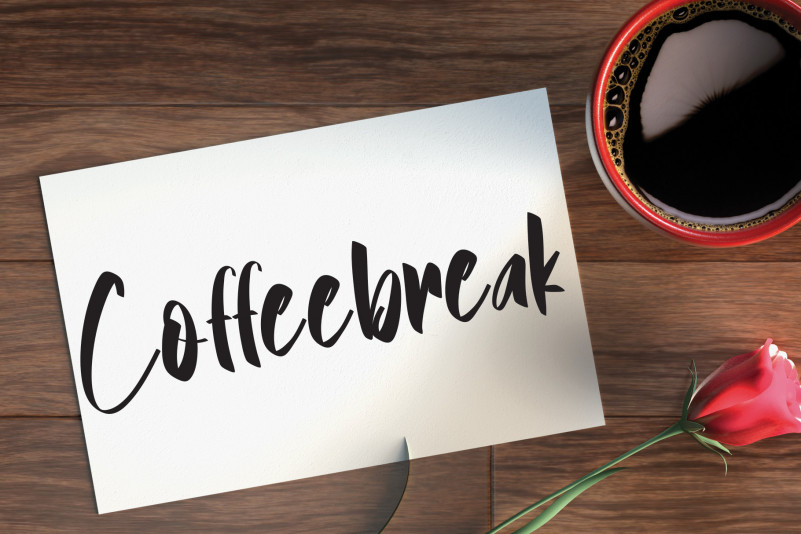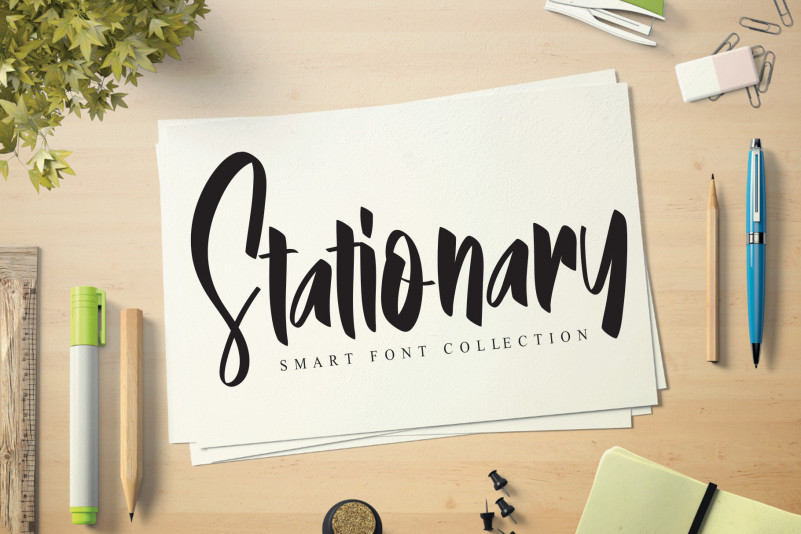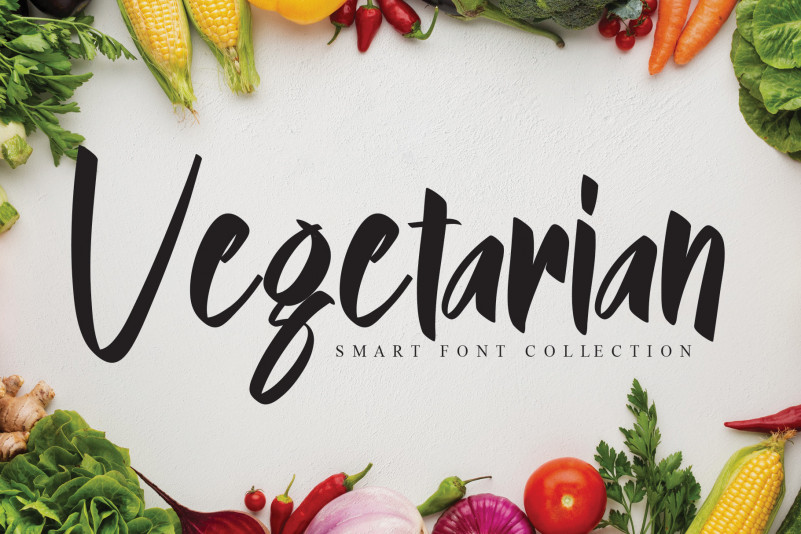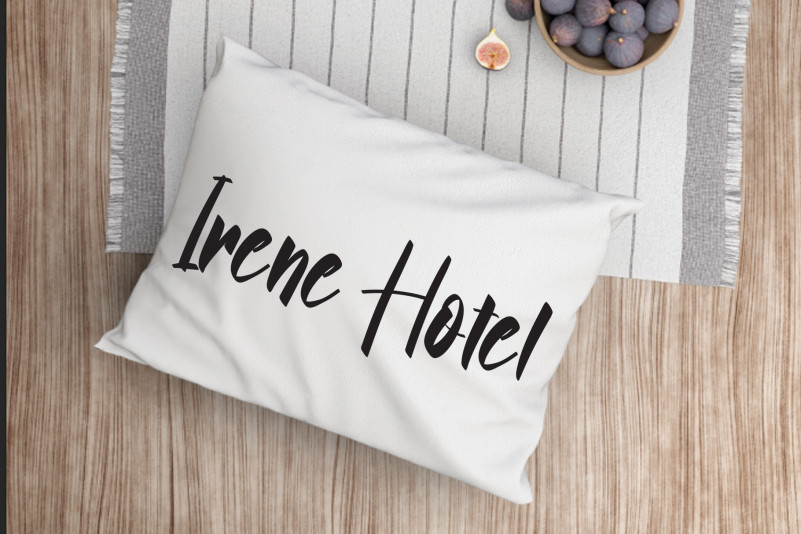
Signature Font
Signature Brush Font
This is a bold and attractive handwritten font. Easily readable and nicely rounded, the characters of this typeface will transform any of your lovely creations into true pieces of art!
the latest style letters are perfect for wall displays, wedding invitations, social media post logos, advertisements, product packaging, product designs, labels, photography, watermarks, invitations, stationery, and any project that requires taste handwriting.